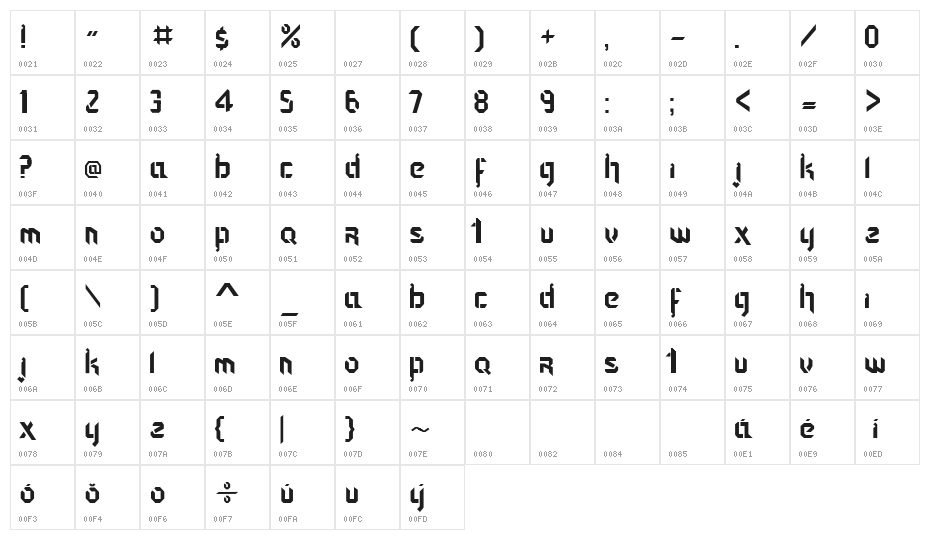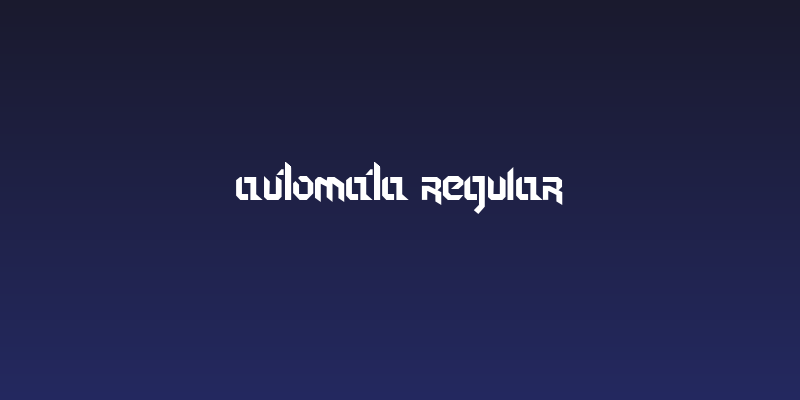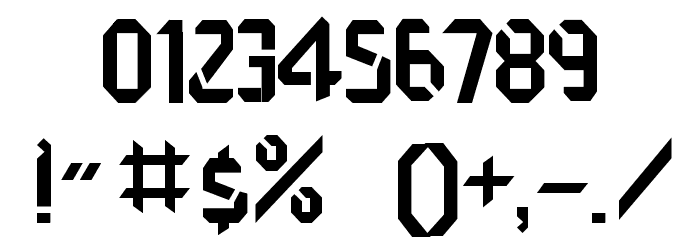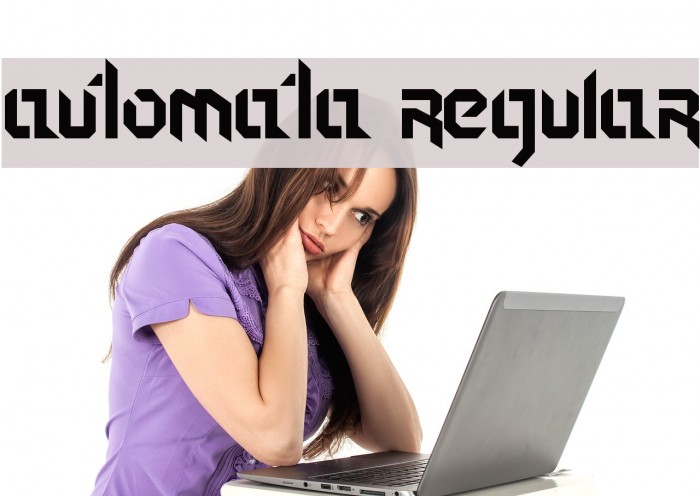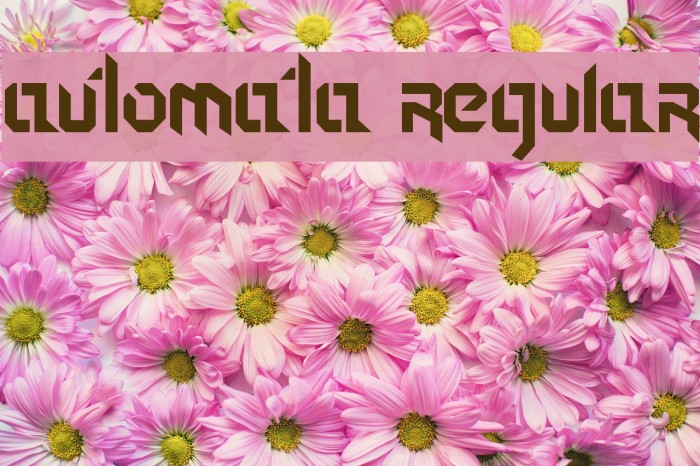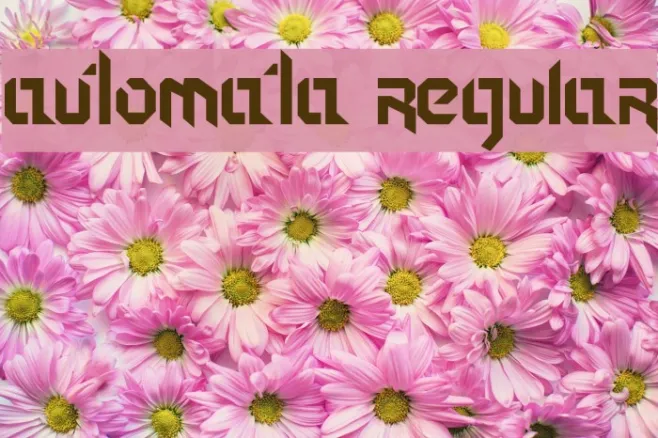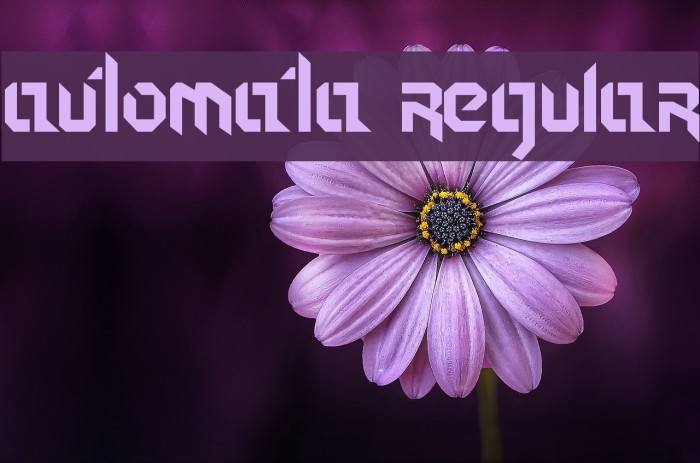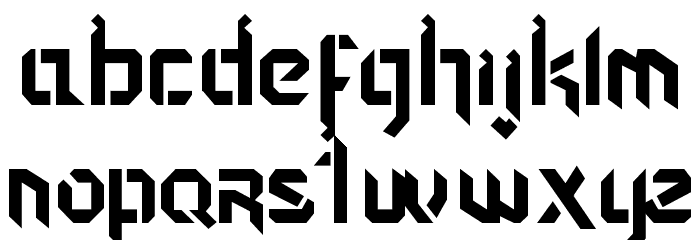
Automata Regular Font
Automata Regular Description
This font features a bold and geometric design with sharp angles and a futuristic aesthetic. The characters are constructed with a combination of straight lines and angular cuts, giving it a mechanical and robotic feel. The uppercase and lowercase letters maintain a consistent style, with a strong emphasis on vertical and horizontal strokes. The numbers and special characters follow the same design principles, ensuring uniformity across the typeface. This font's unique style makes it stand out, ideal for projects that require a modern and edgy look.